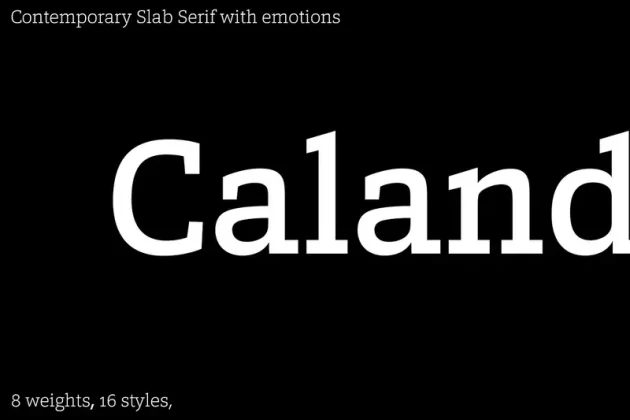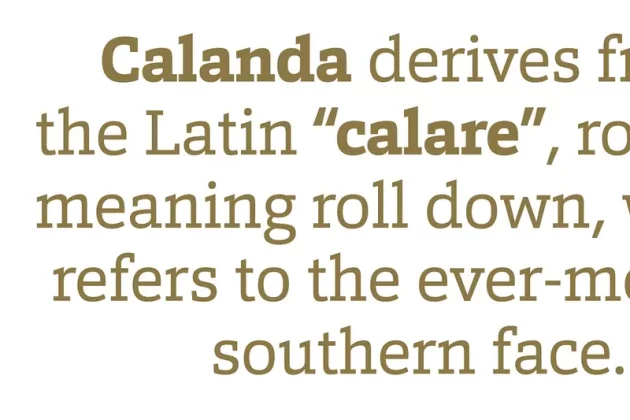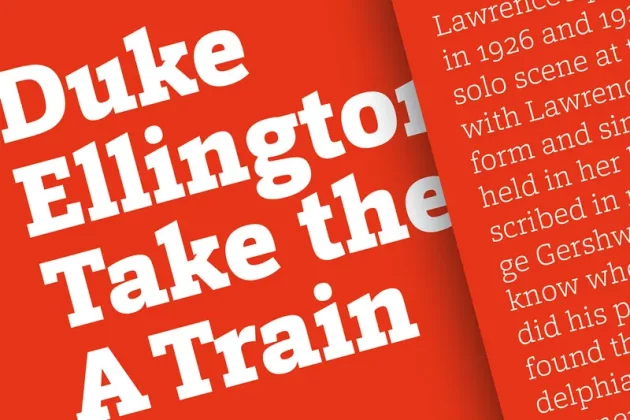
About Calanda Font
Calanda is a humanist slab serif font characterized by its bold and sturdy design. Its distinct character shapes give it a forceful and dynamic presence, making it well-suited for impactful headlines and magazine typography. The font family includes a range of weights and features extended language support and various numeral styles.